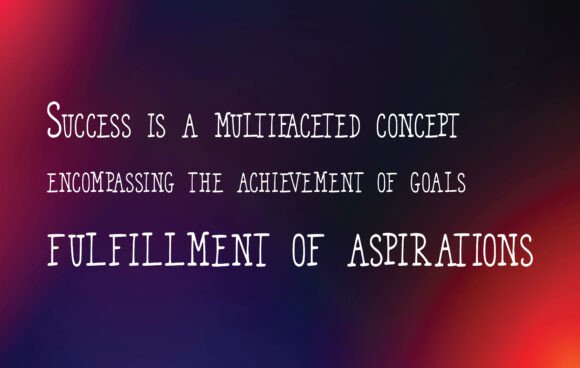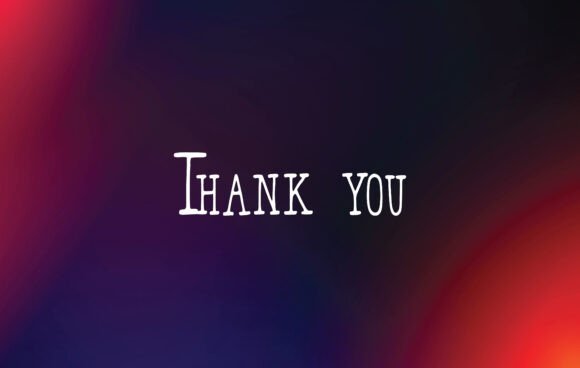
The Power of a Beautiful Font: Unleashing Creativity with Bennett Font
Have you ever stared at a blank page, waiting for that spark of creativity to strike? The blank canvas of a design project can be intimidating, but sometimes all it takes is the right tool to get those ideas flowing. For designers and creatives, finding the perfect font can be a game-changer.
Enter Bennett Font, a lovely and beautiful handwritten font that’s designed to take your creative ideas to new heights. With its elegant and sophisticated style, Bennett Font is the perfect choice for creating eye-catching logos, branding, and quotes that will leave a lasting impression. Whether you’re a seasoned designer or just starting out, Bennett Font is a valuable addition to your toolkit.
Bennett Font Key Features
- Font Family: Bennett Font is a serif typeface designed for body text and titles, making it suitable for various applications.
- Unique Characteristics: Bennett Font features a classic, elegant design with subtle flair and a sense of sophistication, making it ideal for use in corporate, academic, and publishing contexts.
Bennett Font Review
When I first started using the Bennett Font, I was immediately drawn to its ✨ elegant and refined aesthetic. The font’s clean lines and subtle curves make it perfect for creating a sophisticated and high-end feel in any design project.
- The font’s legibility is excellent, making it a great choice for body text or headlines.
- The variety of weights and styles available (Light, Regular, Medium, Bold, Heavy) allows for a high degree of customization and flexibility.
- The font is highly versatile and can be used in a wide range of applications, from print to digital.
However, I did encounter a few ⚠️ limitations during my review. The font’s subtlety can sometimes make it difficult to read, especially at smaller sizes. Additionally, the font’s lack of bold emphasis can make it harder to create a strong visual hierarchy in complex designs.
Overall, I would give the Bennett Font a solid 4 out of 5 stars. While it excels in many areas, its limitations prevent it from being a top choice for every design project. Nevertheless, it remains a reliable and stylish option for designers looking to add a touch of sophistication to their work.
Bennett Font is ideal for:
- Book covers and book titles
- Restaurant and cafe menus
For optimal results, use Bennett Font in combination with bold or italic styles to create visual interest.